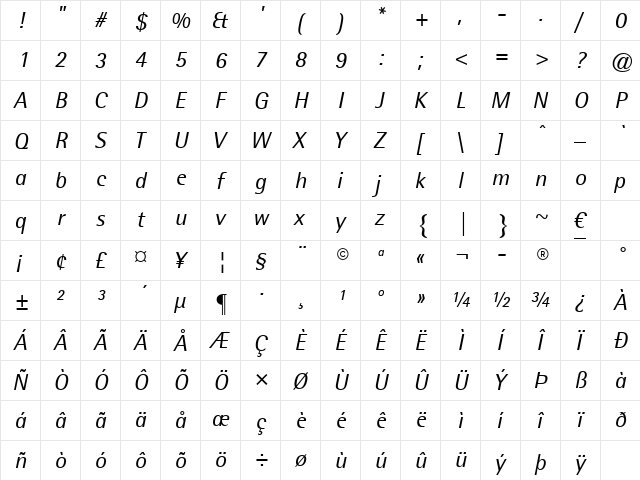
Agfa Rotis Semisans Italic
Design Context for Agfa Rotis Semisans Typeface
Agfa Rotis Semisans is a composed and adaptable typeface that performs quietly and consistently across a wide range of design contexts. Its italic angle brings a sense of urgency and motion to the letterforms.
Pro Tip: Use Agfa Rotis Semisans for emphasis, pull quotes, and subheadings where its slanted energy can add rhythm to the layout.